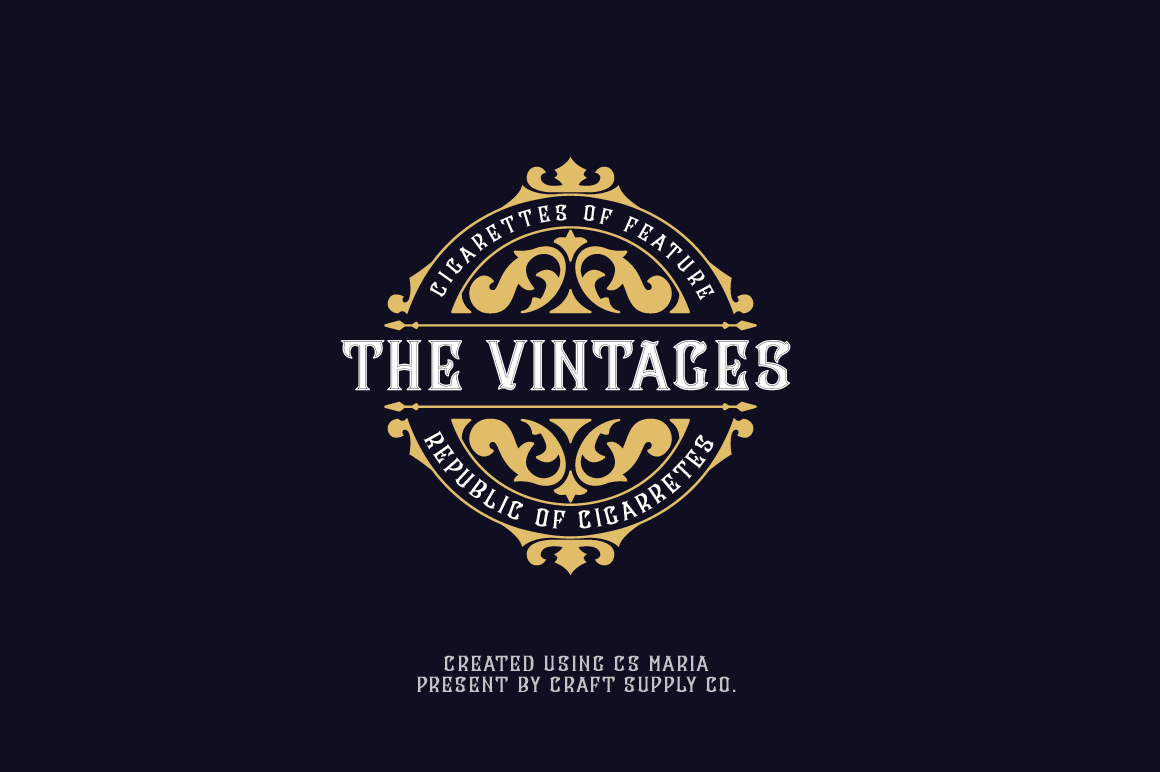
CS Maria Font + Ornaments
Introducing CS Maria includes 5 Style Fonts. It can be used to create almost all types of design projects like print materials. Just use your imagination and your project will become more alive and vivid than ever with one of the CS Maria Font Family.
CS Maria is perfect for beverage label design project. coffee label. logotype design, greeting card or a package design, or even a brand identity, craft design, any DIY project, book title, wedding font, pop vintage design, retro design or any purpose to make your art / design project look pretty and trendy
- CS Maria Regular
- CS Maria Double
- CS Maria Dropline
- CS Maria Inner
- CS Maria Outline